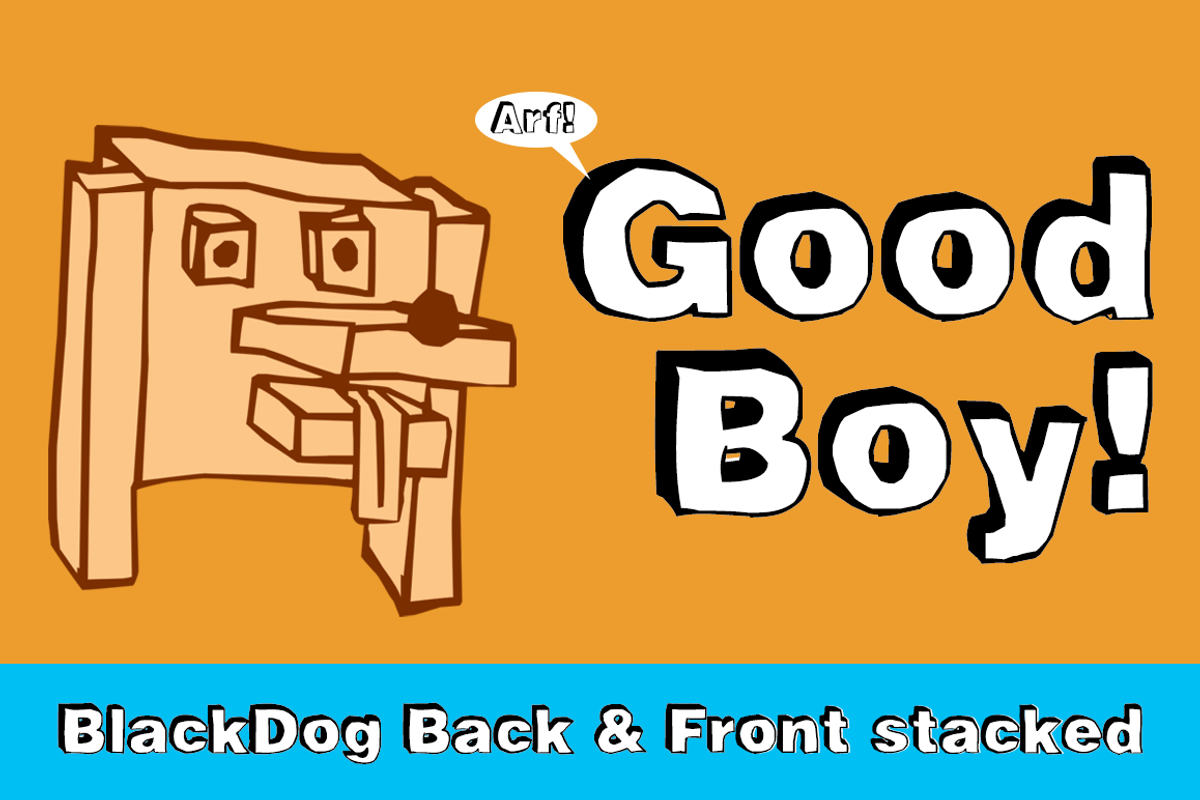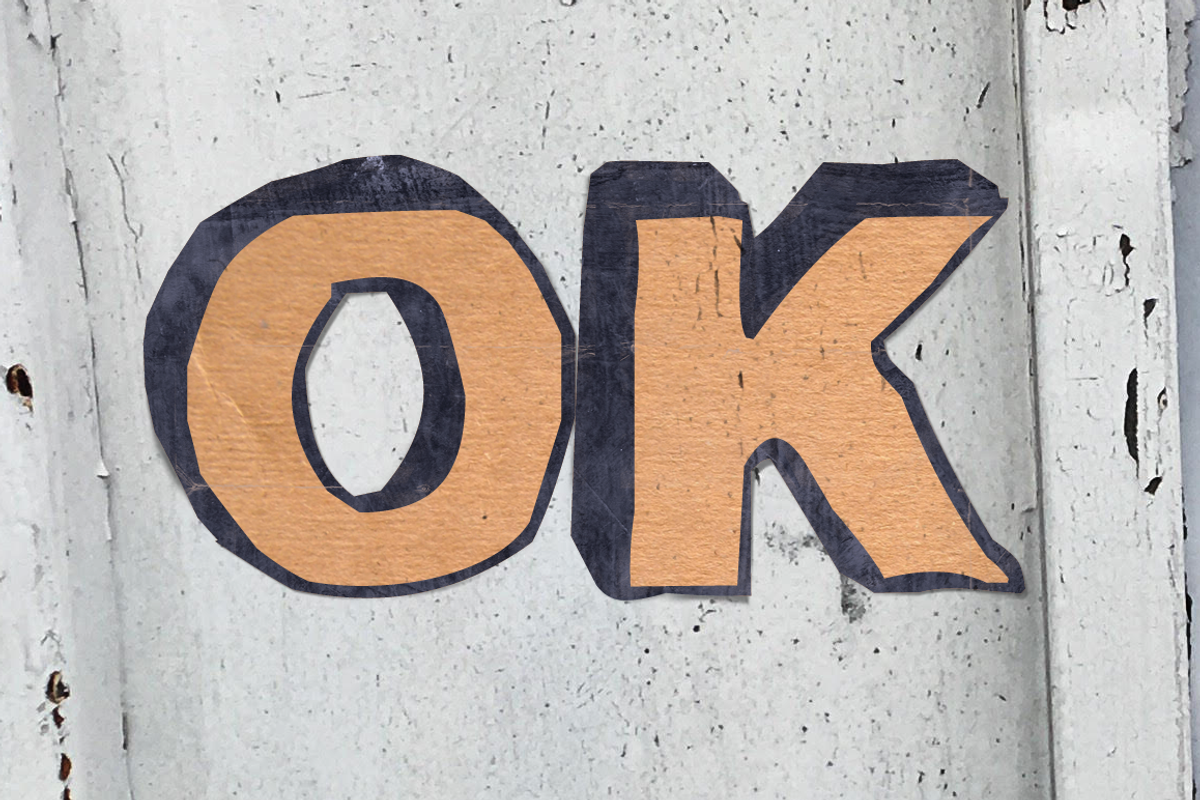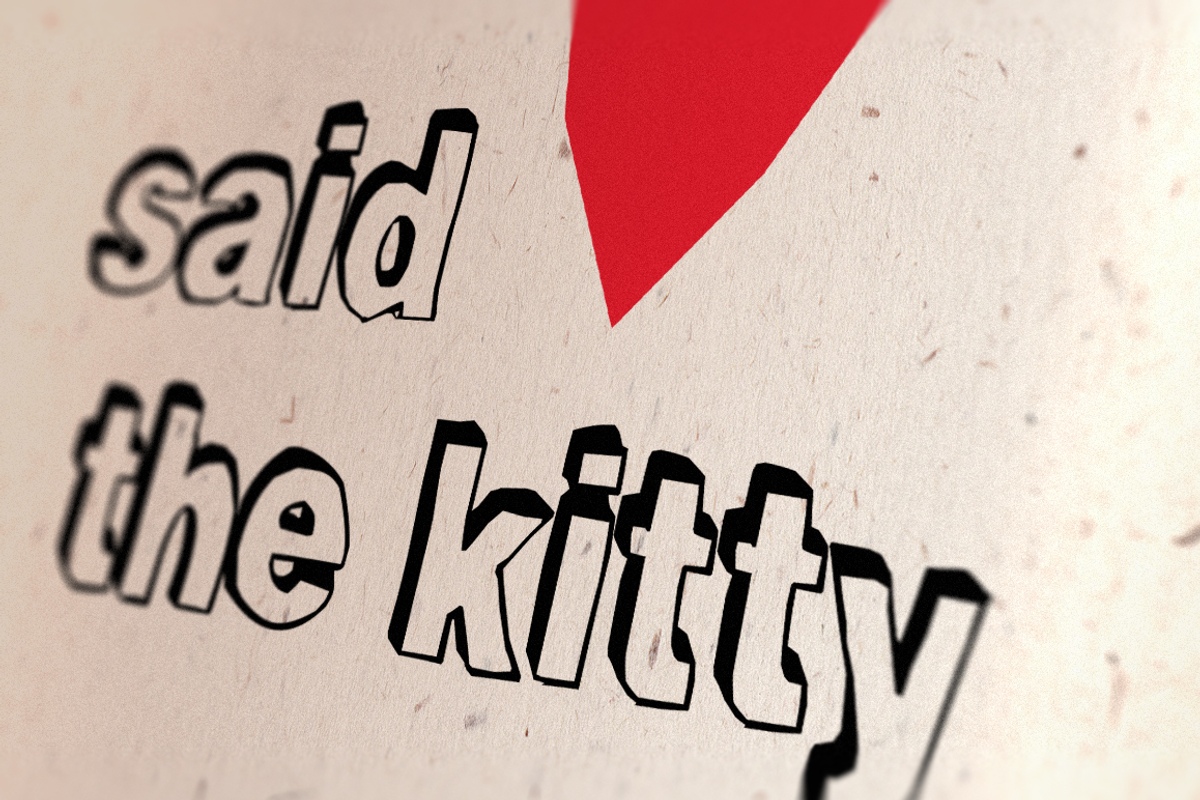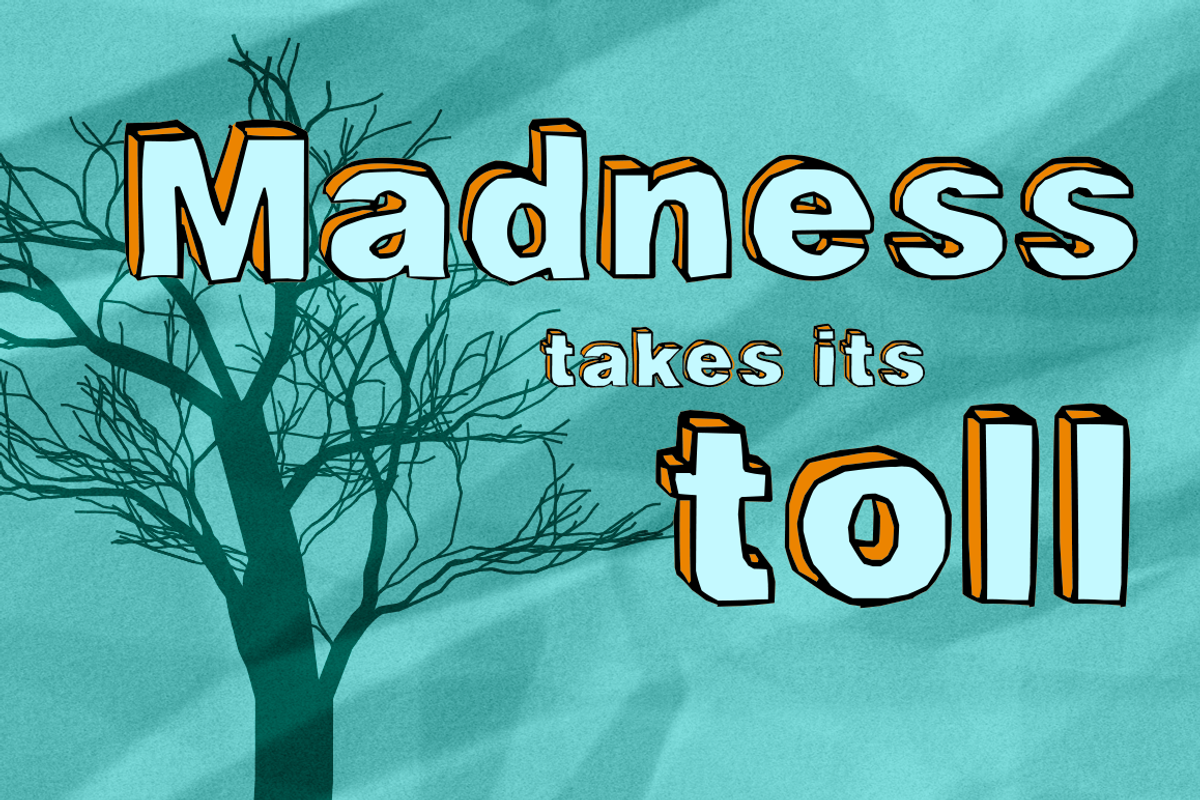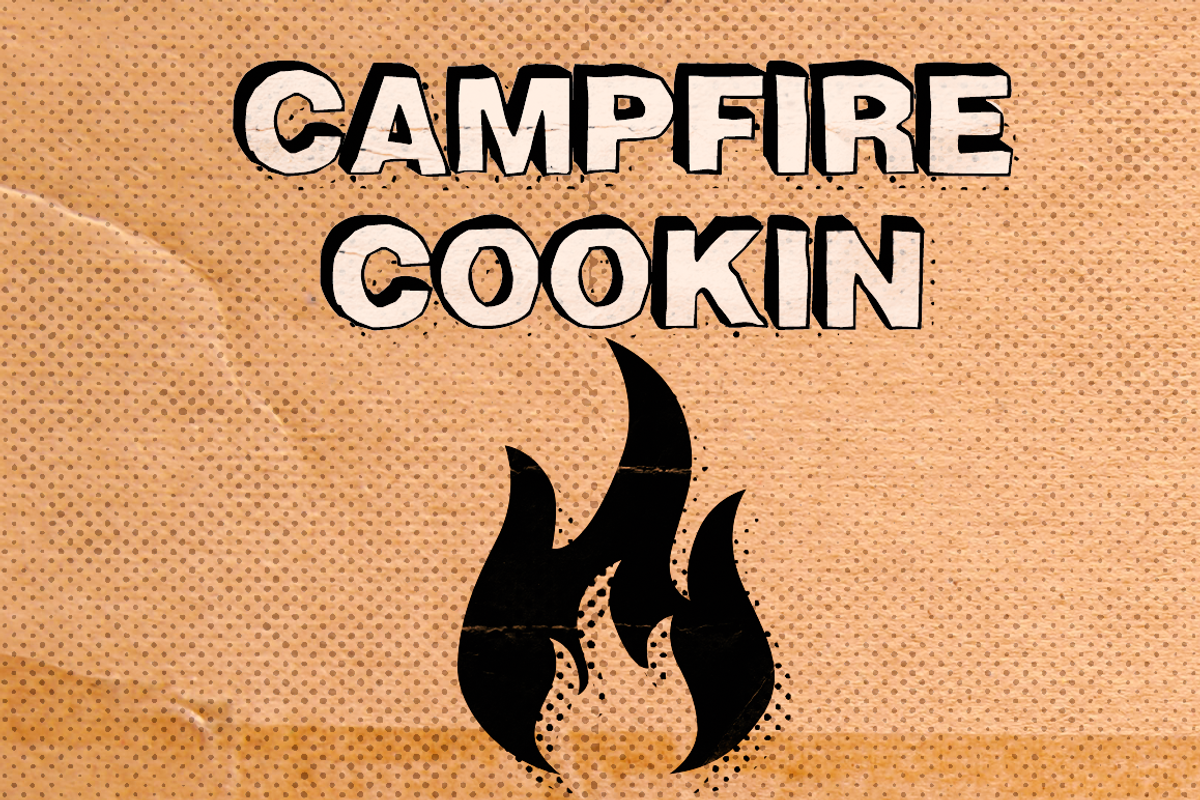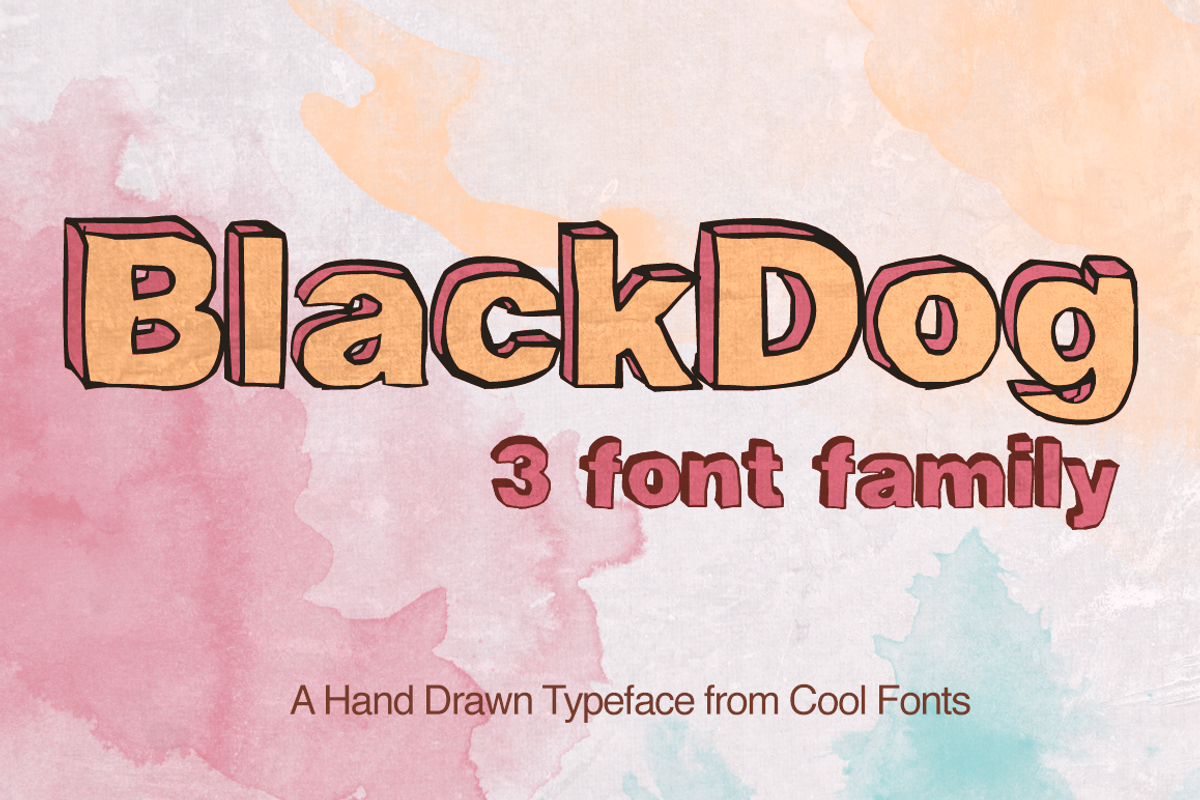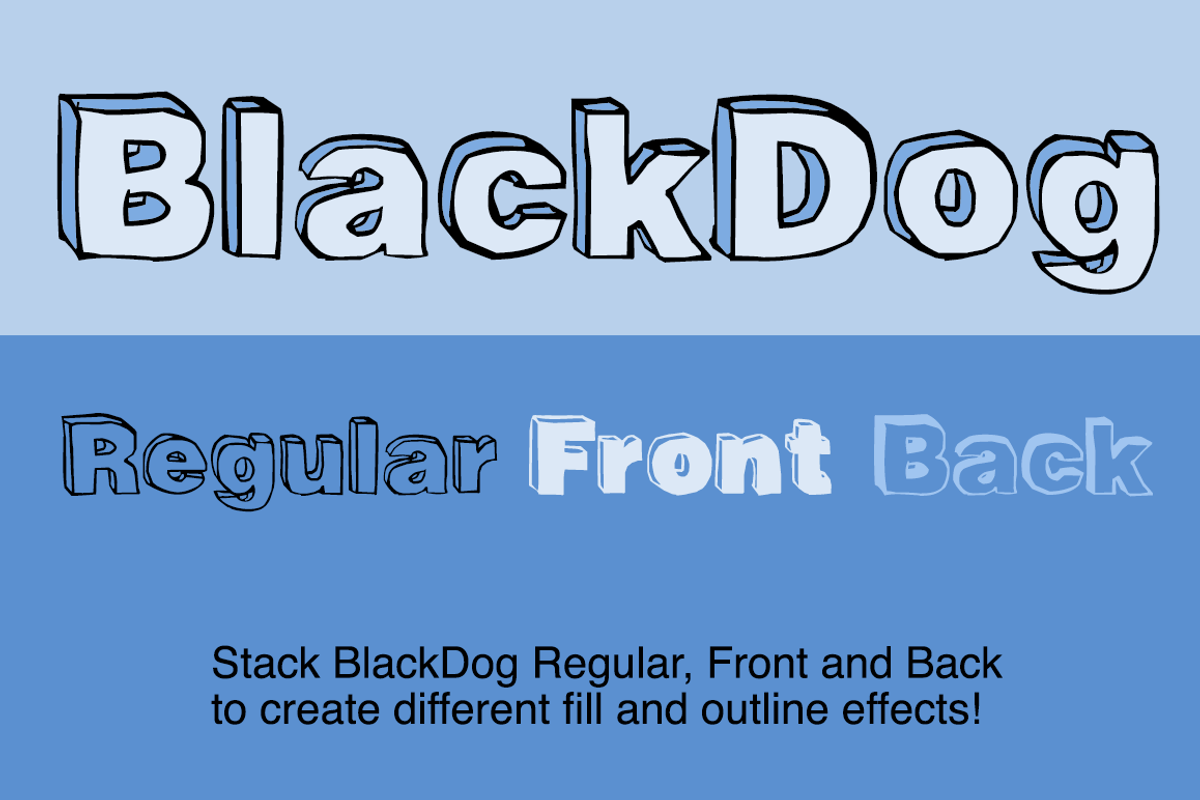
BlackDog
BlackDog is a fun hand drawn extruded typeface that includes 3 variations- Regular, Front and Back. Regular is just the outline, Back had the extrusion filled and Front has the front face filled. It has a nice cartoony feel and you can create a lot of different looks by stacking the different variations.
Font includes upper & lower case, punctuation, numbers and accents.
BlackDog by Cool Fonts fits naturally into Branding, posters, packaging, typography.